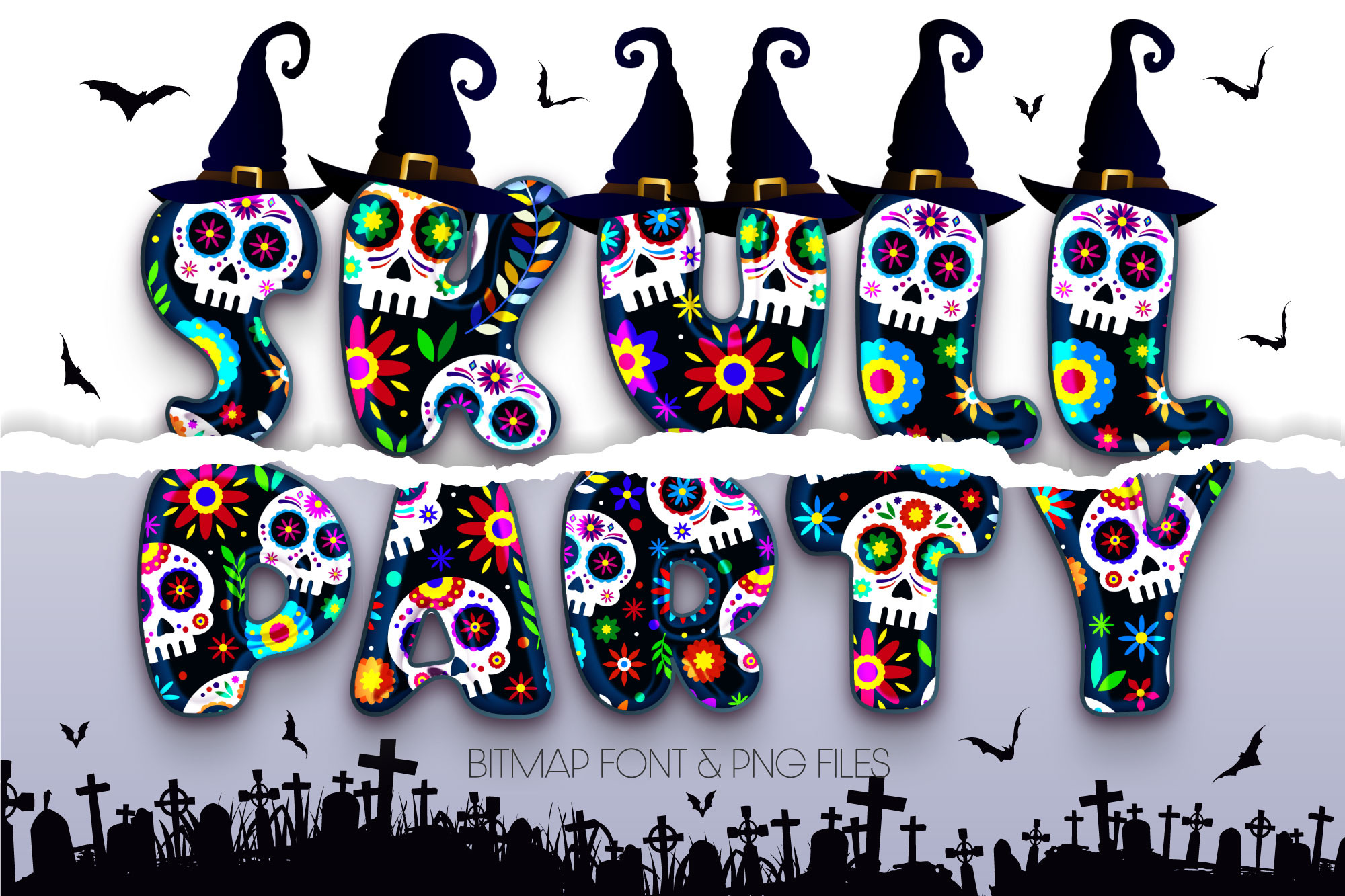
Skull Party Font
Skull Party is a fun color font with cute skulls and witch hats. It embodies playfulness and authenticity and is the perfect choice for any Halloween project.